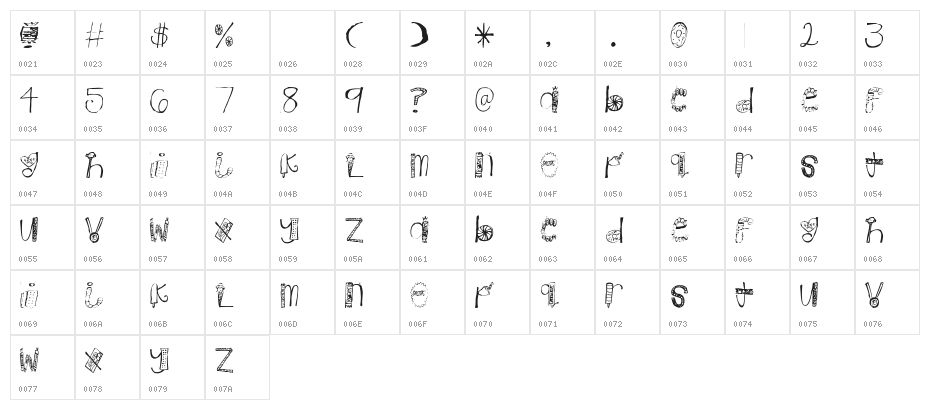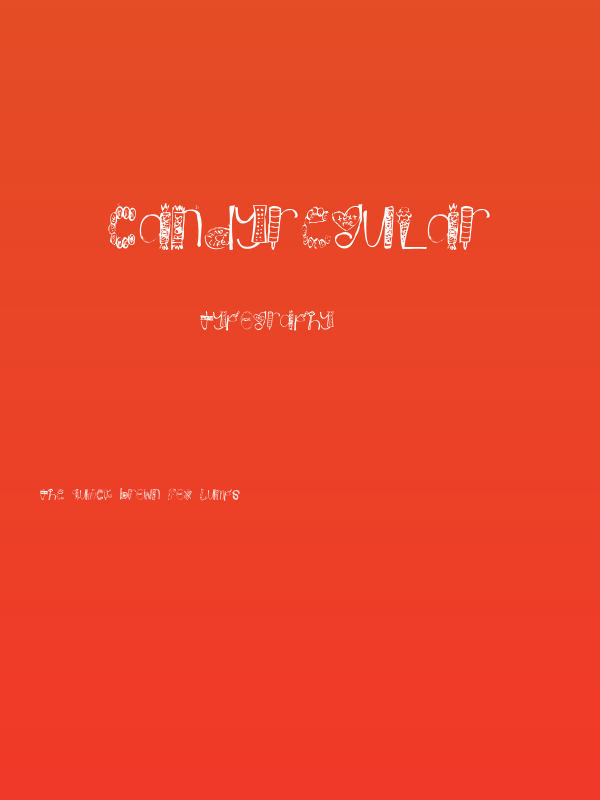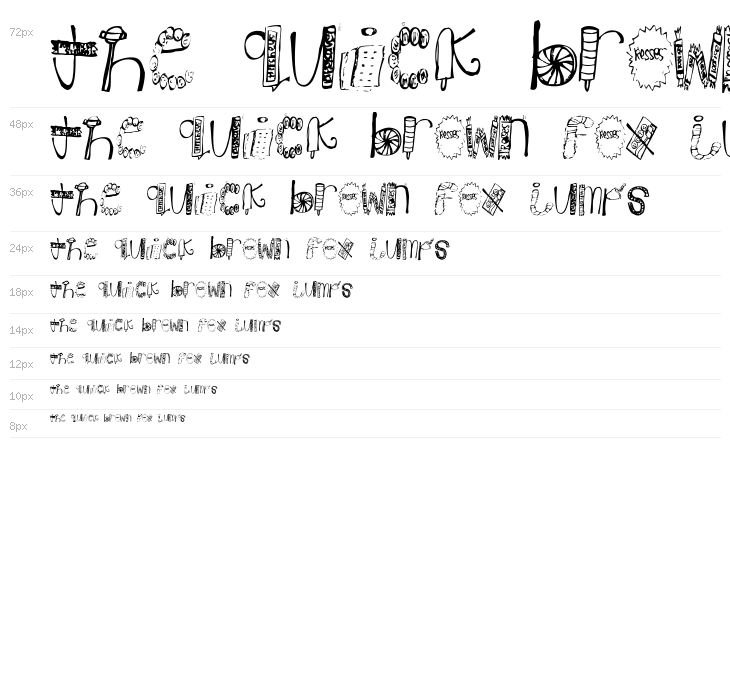
CandyRegular Font
CandyRegular Description
This playful and whimsical font features a variety of decorative elements that make each character unique. The letters are adorned with patterns, doodles, and playful motifs, giving it a hand-drawn and artistic feel. The uppercase and lowercase letters maintain a consistent style, with each character showcasing a different design element, such as stripes, dots, or swirls. Numbers and special characters follow the same creative approach, adding to the font's overall charm. This font is perfect for projects that require a fun and imaginative touch.
| Overall Style | Playful, Artistic, Whimsical |
| Use Case | Headlines, Logos, Creative projects |
| Proposed Projects | Ideal for children's books, playful branding, party invitations, and creative posters. |